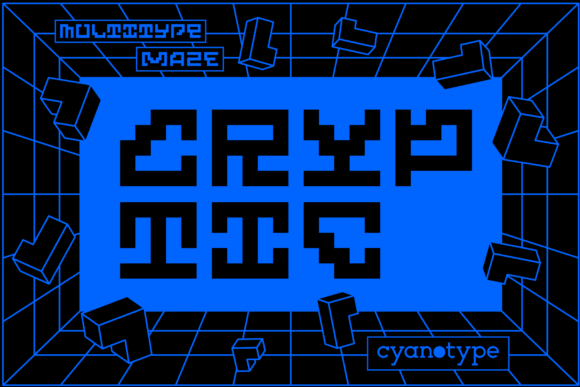
Prepare yourself to embark on a typographic odyssey with MultiType Maze Cryptic, the pixelated display font that will warp your designs into a captivating labyrinth of visual intrigue. This extraordinary typeface defies convention, offering a distorted and trendy aesthetic that will leave your audience mesmerized.
Immerse yourself in the enigmatic world of MultiType Maze Cryptic, where each character is a cryptic enigma, a pixelated puzzle waiting to be deciphered. Its unique shapes and sharp angles dance across the digital canvas, captivating the eyes and igniting the imagination.
With MultiType Maze Cryptic, you possess the power to transport your designs into the realm of digital comics, creating immersive experiences that transcend the boundaries of reality. Its inherent charm lies in its ability to evoke a sense of mystery and adventure, inviting your readers to delve deeper into the narrative tapestry you weave with words.
Unleash the boundless potential of MultiType Maze Cryptic and witness the transformation of your digital creations. Let your imagination run wild as you craft eye-catching headlines, captivating logos, and immersive social media posts that demand attention and leave a lasting impression.
Don't settle for ordinary fonts that blend into the background. Embrace the extraordinary with MultiType Maze Cryptic and elevate your designs to new heights of visual prowess. Its PUA encoding ensures effortless access to a treasure trove of glyphs and swashes, empowering you to unleash your creativity without limits.
Step into the realm of MultiType Maze Cryptic today and embark on a typographic adventure that will redefine your design aesthetic. Its captivating charm and limitless potential await your discovery. Seize the opportunity to make an indelible mark on the digital landscape, one pixelated masterpiece at a time.